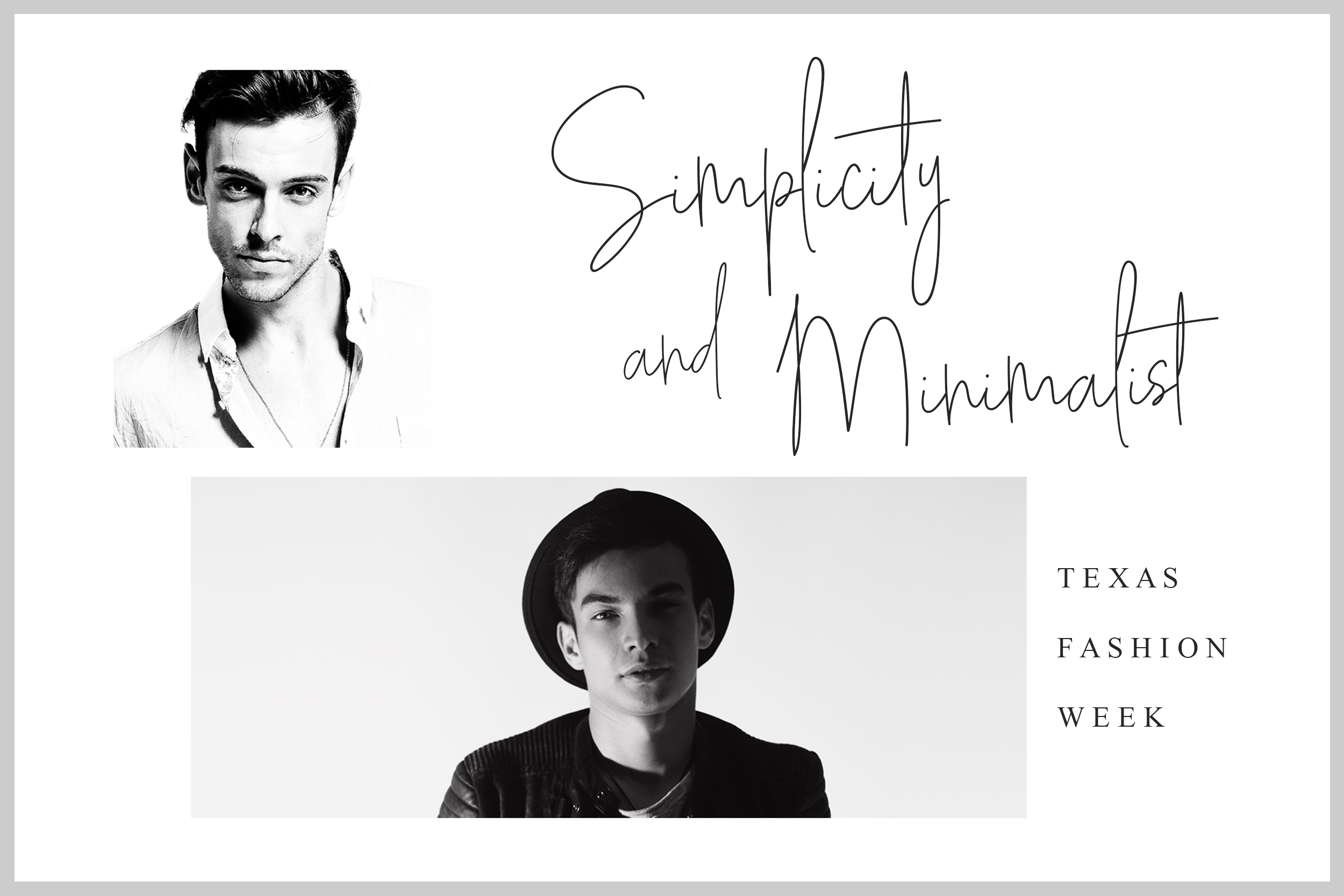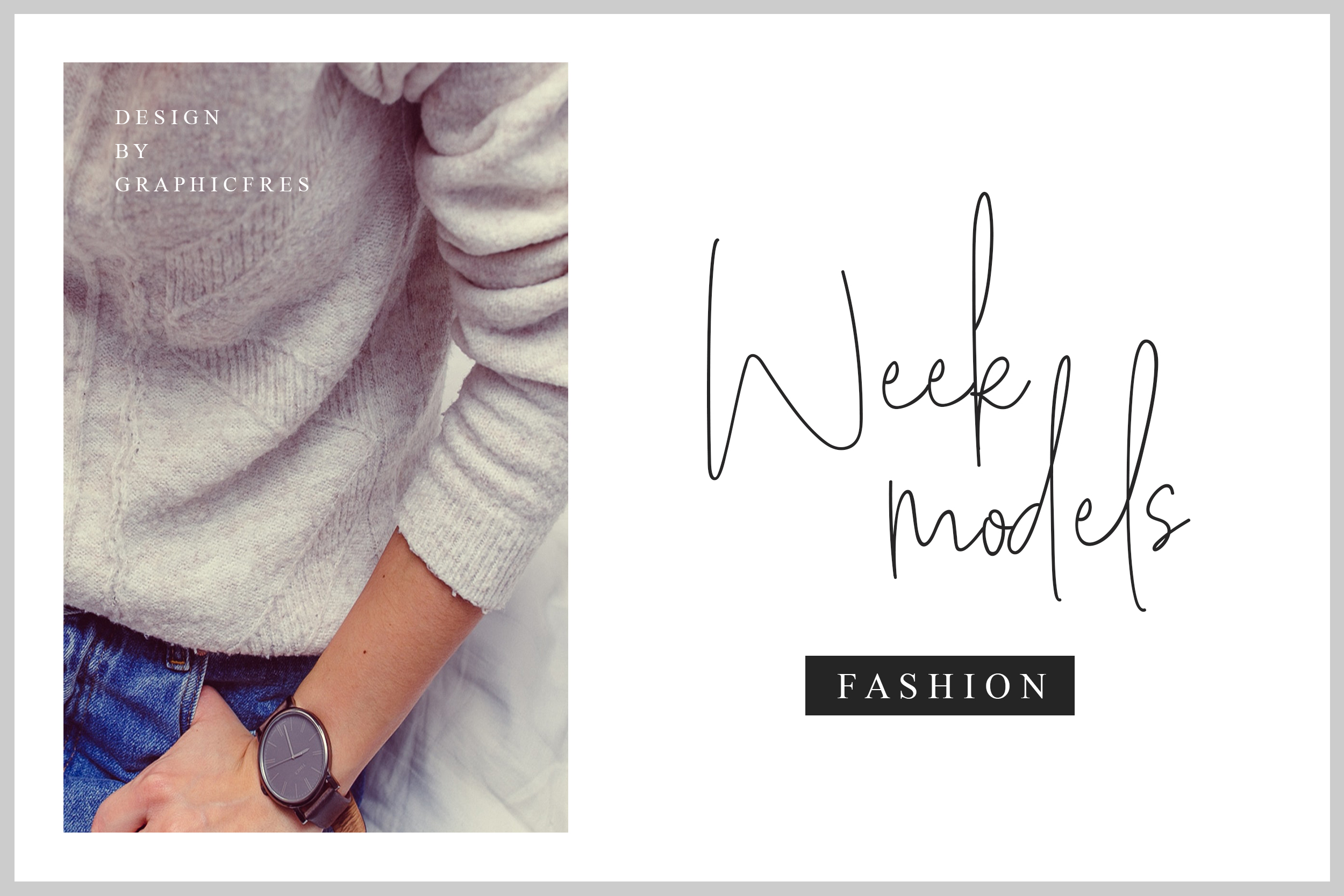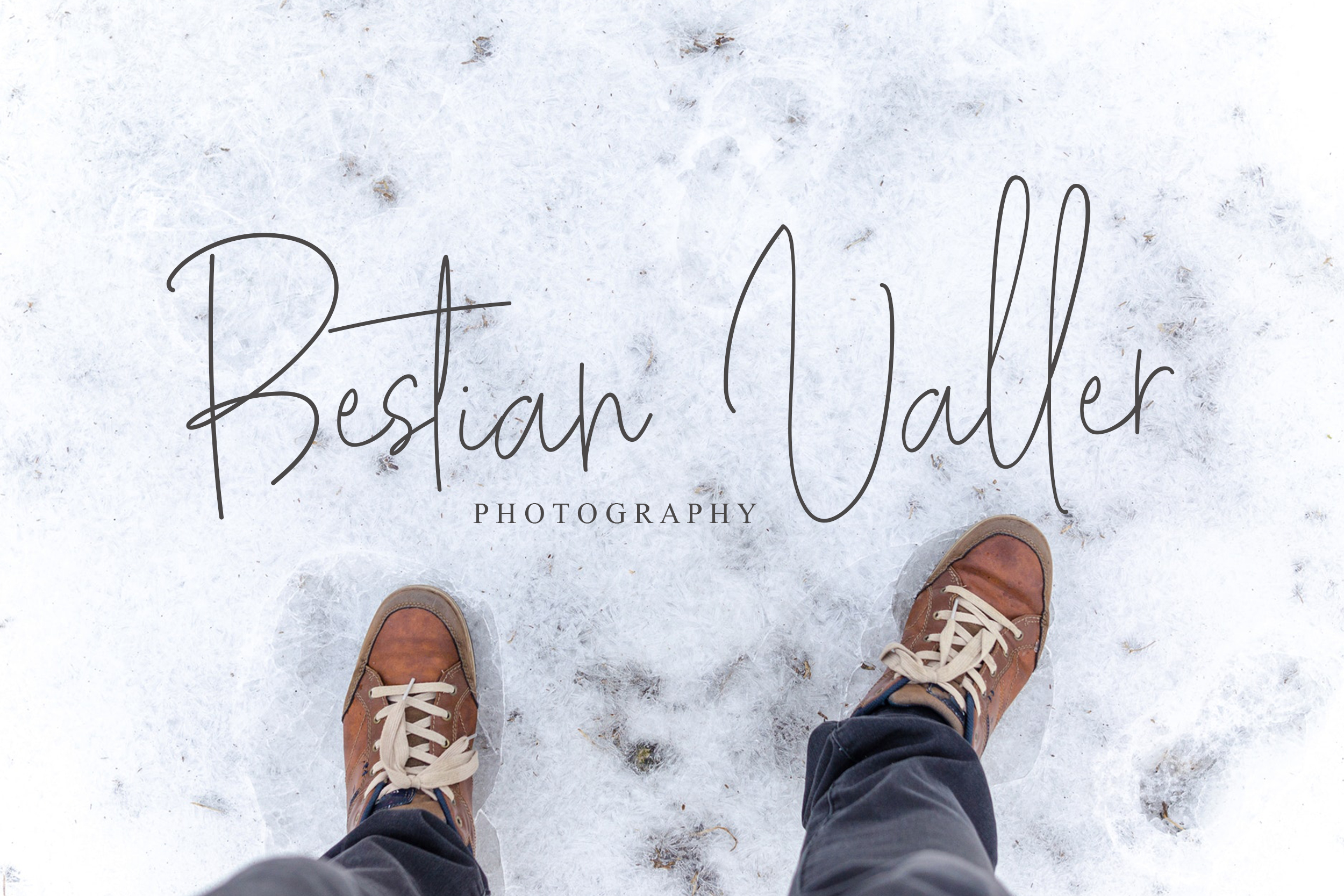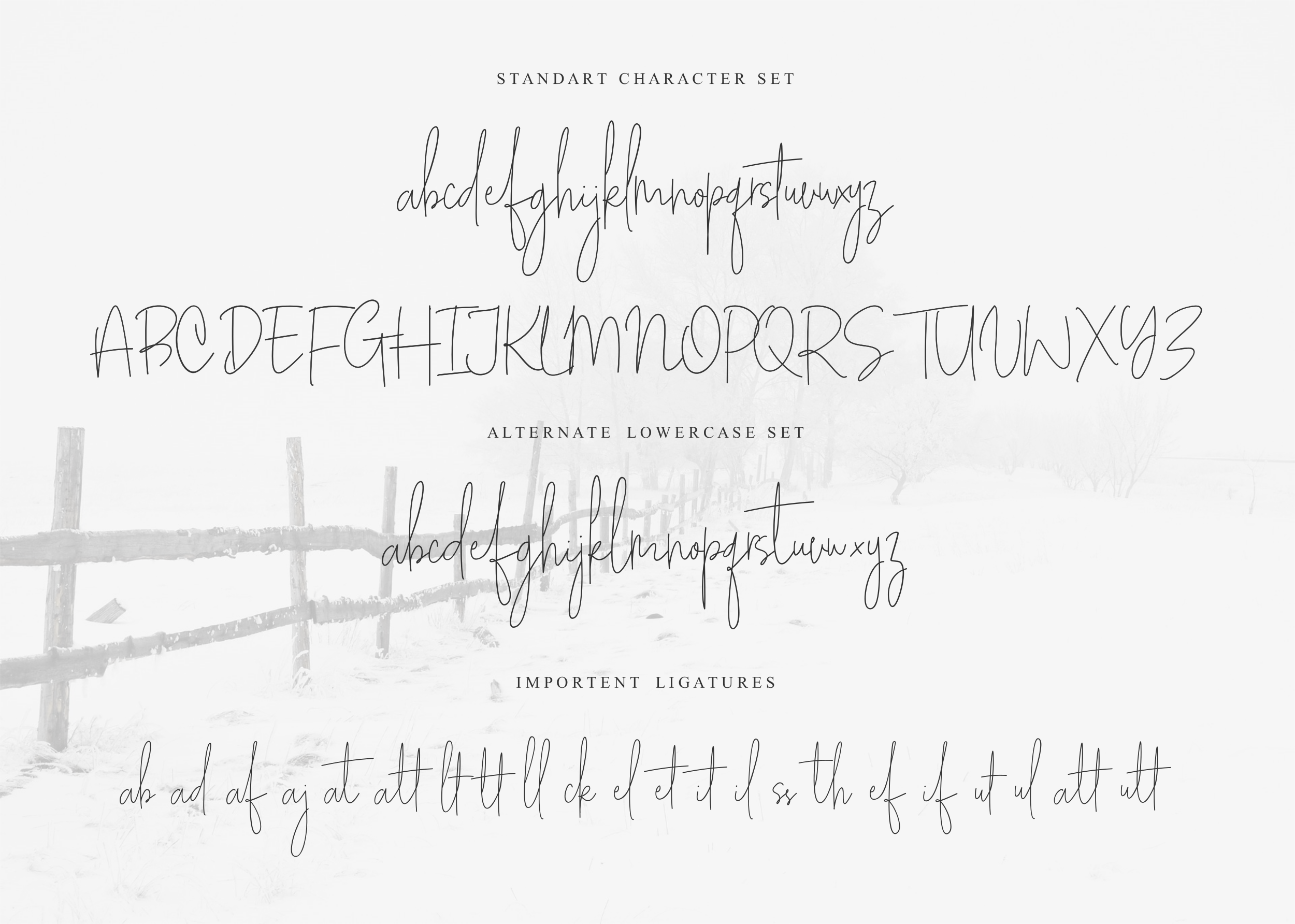
White Apparel Script Font
About White Apparel Script Font
White Apparel is a minimalist and carefree script font, perfect for fashion and editorial applications. This font is stunning and crisp with a ton of potential.